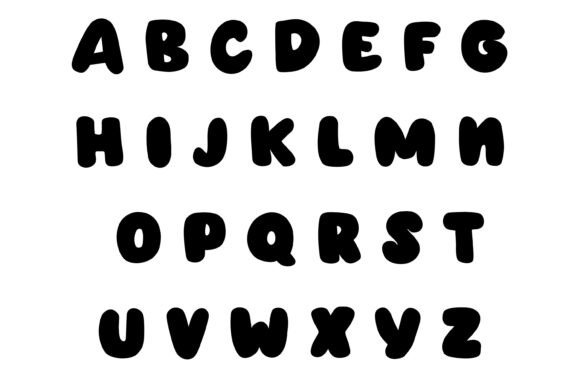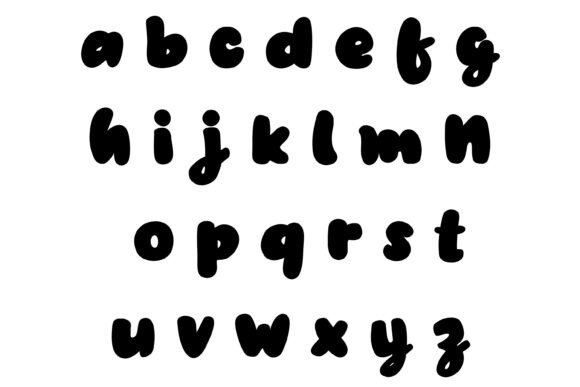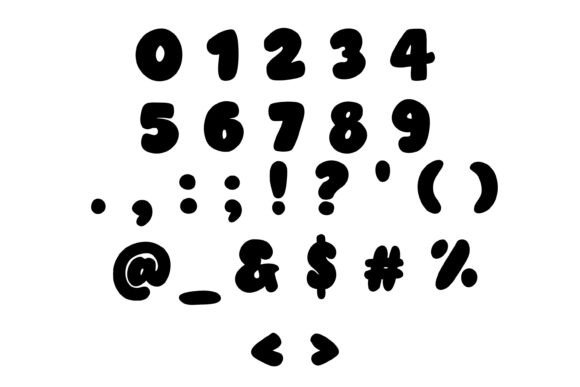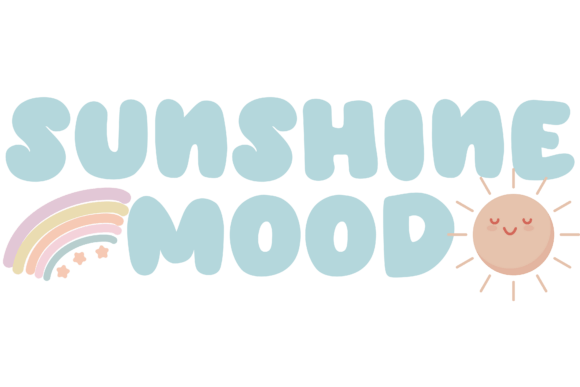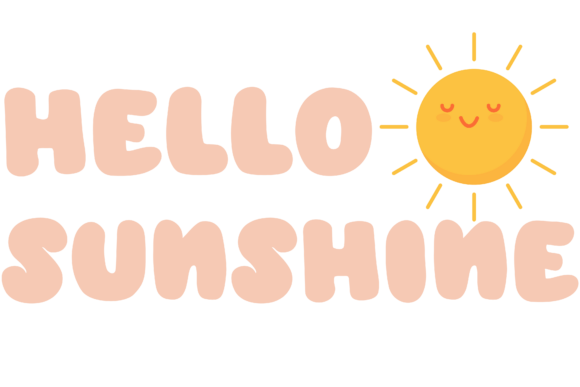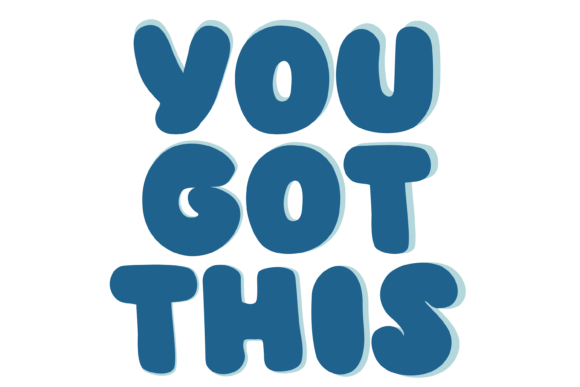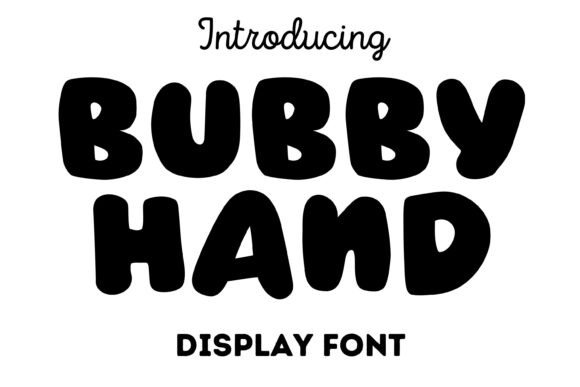
Introducing Bubby Hand: The Playful Display Font That Adds a Splash of Fun to Your Designs!
Have you ever been in the middle of a design project, and suddenly, you’re stuck on finding the perfect font? I recall a recent experience where I was working on a custom t-shirt design for a kid’s birthday party, and I just couldn’t find a font that captured the playful, bubbly vibe I was going for. That’s when I stumbled upon Bubby Hand – a bold, display font that instantly brought my design to life! 🧡
What Makes Bubby Hand So Special?
Bubby Hand is more than just a font – it’s a design personality that adds a soft, friendly touch to your creations. This bold, bubble-style font is perfect for kid-friendly designs, classroom printables, custom t-shirts, mugs, party decor, and more. Its chunky, playful vibe works seamlessly in Canva, Cricut, and sublimation projects, making it a versatile addition to your design toolkit.
So, what do I love about Bubby Hand? Here are a few highlights:
• ✨ Playful and fun: Bubby Hand brings a level of whimsy and playfulness to your designs that’s hard to achieve with other fonts.
• ✅ Easy to use: This font is beginner-friendly and works well in various design software, including Canva, Cricut, and Procreate.
• 💬 Versatile: Use Bubby Hand for kids’ apparel, birthday decorations, quotes, branding, and social media – the possibilities are endless!
Now, are there any quirks or limitations? 🤔 A few things to note:
• ⚠️ Legibility at small sizes: Like many display fonts, Bubby Hand may not be the best choice for body text or small font sizes.
• ⚠️ Limited formal use: This font is playful and fun, which means it might not be suitable for more formal or professional designs.
The Story Behind Bubby Hand
Bubby Hand was designed with one goal in mind: to bring a playful, bubbly personality to your designs. The font’s creator, a passionate typographer, aimed to craft a font that would evoke a sense of fun and whimsy. The result is a bold, display font that’s perfect for kid-friendly projects and creative designs.
Is Bubby Hand suitable for body text or small font sizes? While Bubby Hand is a display font, it’s best used for headings or titles. For body text or small font sizes, consider a more legible font.
Can I use Bubby Hand for sublimation projects? Absolutely! Bubby Hand works well for sublimation projects, such as custom t-shirts, mugs, and tote bags.
With Bubby Hand, you can add a fun and creative touch to your designs. Whether you’re a designer, crafter, or hobbyist, this playful font is sure to bring a smile to your face and a splash of personality to your projects! ✨🧡